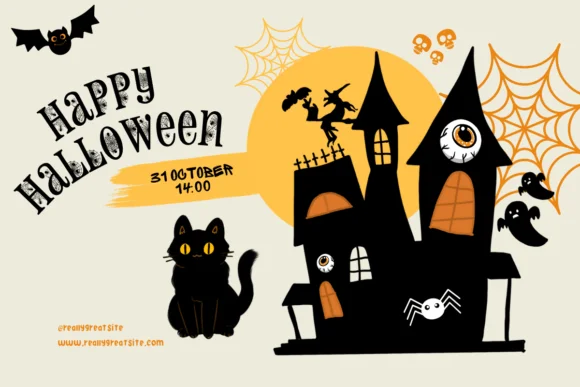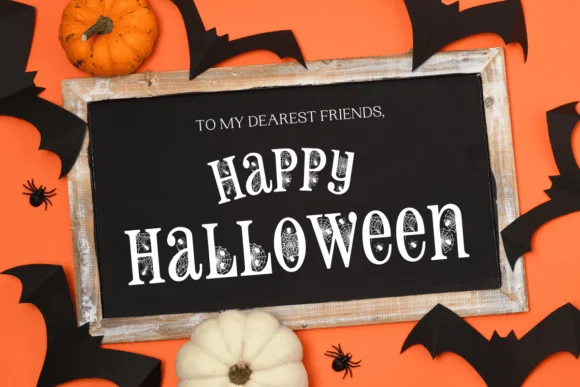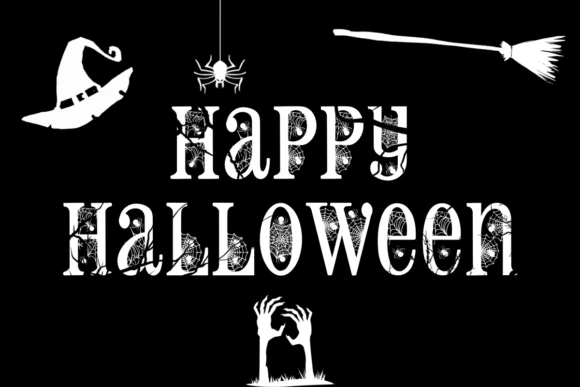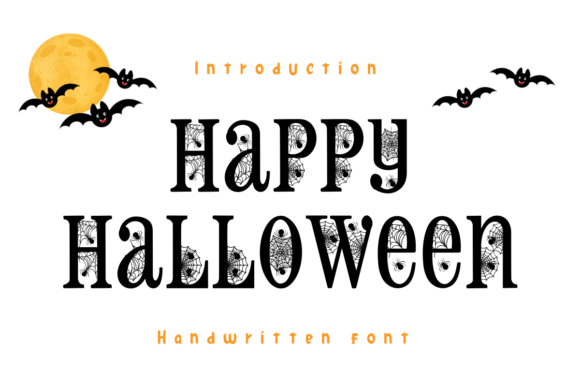
Happy Halloween Font
This joyful font is perfect for positive Halloween celebrations, cheerful Halloween greetings, happy Halloween parties, uplifting seasonal decorations, joyful Halloween marketing, positive Halloween branding, cheerful trick-or-treat signage, happy Halloween social media posts, upbeat Halloween invitations, and delightfully positive Halloween messaging materials.
Happy Halloween Font is exciting because it celebrates the pure joy and unbridled happiness that defines Halloween as a celebration of community, creativity, and shared supernatural fun through its cheerfully crafted letterforms that radiate the same infectious enthusiasm as children's laughter echoing through neighborhoods on Halloween night. The font features bouncy, spirited characters with happy proportions and joyful details that capture the delightful transformation of potentially frightening themes into sources of pure entertainment and community bonding, incorporating celebration flourishes and happiness elements that create typography as uplifting and memorable as the moment when Halloween fears become Halloween fun. Each letter showcases the infectious positivity and genuine celebration that makes Happy Halloween greetings so universally beloved, with cheerful curves and joyful accents that transform ordinary text into expressions of Halloween happiness that remind everyone why October 31st brings such genuine joy to communities worldwide, proving that the best Halloween celebrations are those filled with laughter, creativity, and shared positive energy.
The Happy Halloween Font family includes celebratory style variations: Regular, Bold, Light, Joyful, and Cheerful versions. The collection features special happiness elements including smile accents, celebration flourishes, joy-inspired details, and cheerful ornaments. Additional components include happy borders, celebration frames, joyful decorations, and positively uplifting ornamental designs that enhance the font's happy Halloween appeal and create cohesive positive Halloween themes.
Positive celebration organizers and joyful Halloween enthusiasts will find Happy Halloween Font to be an essential resource for creating uplifting Halloween communications that emphasize the joy, community spirit, and positive energy that make Halloween such a wonderfully happy celebration for people of all ages. This joyfully crafted font transforms ordinary Halloween messaging into happy expressions that resonate with families and communities who celebrate Halloween as a time of pure fun, creative expression, and shared happiness that brings people together in celebration of imagination and community spirit.
The typeface includes comprehensive character support with joyful styling that maintains excellent readability while conveying the cheerful spirit and positive energy of happy Halloween celebrations. The font's uplifting design ensures delightfully positive results across both family Halloween applications and community celebration productions.
Perfect for family Halloween events, positive seasonal marketing, cheerful Halloween celebrations, and joyfully uplifting Halloween communications, this font delivers happily inspiring visual impact that communicates pure joy, community celebration, and the wonderfully positive truth that Halloween's greatest magic lies in the happiness it brings to communities celebrating together.